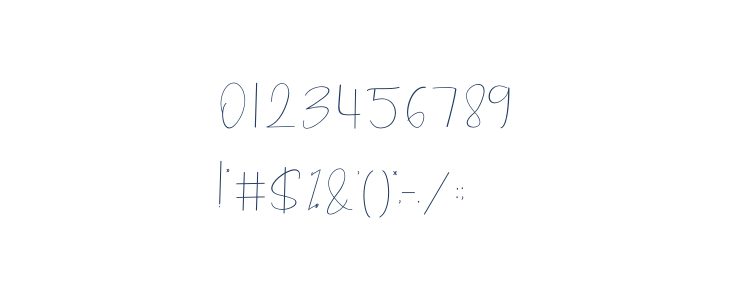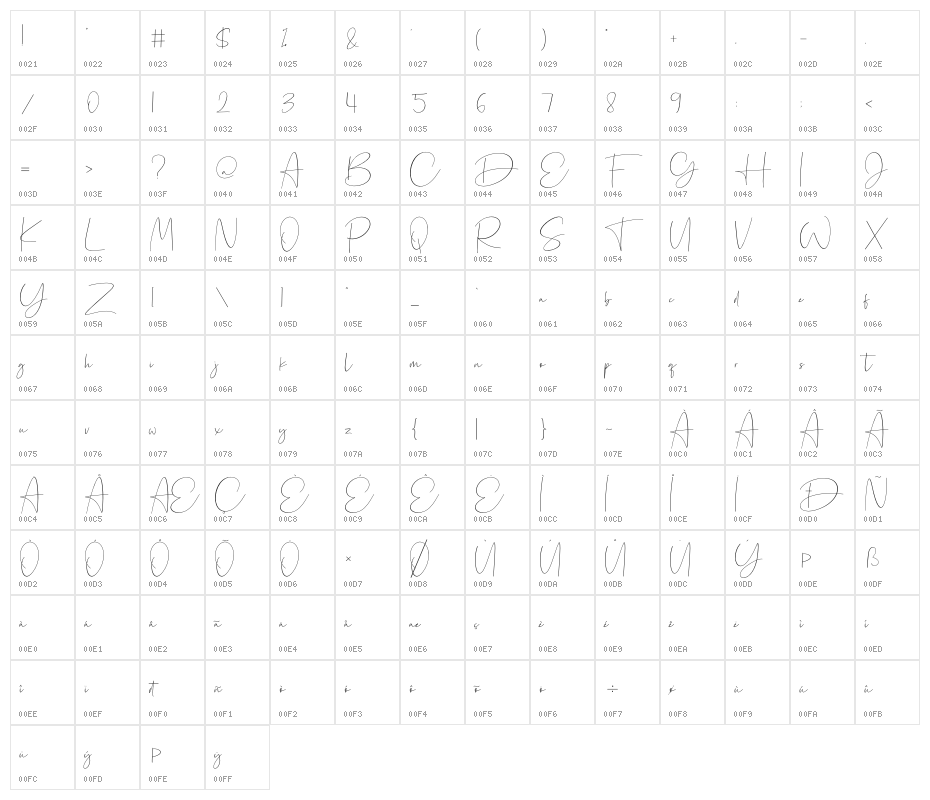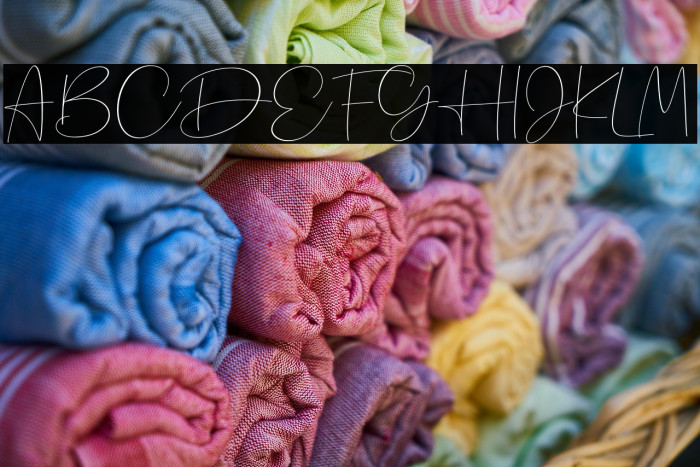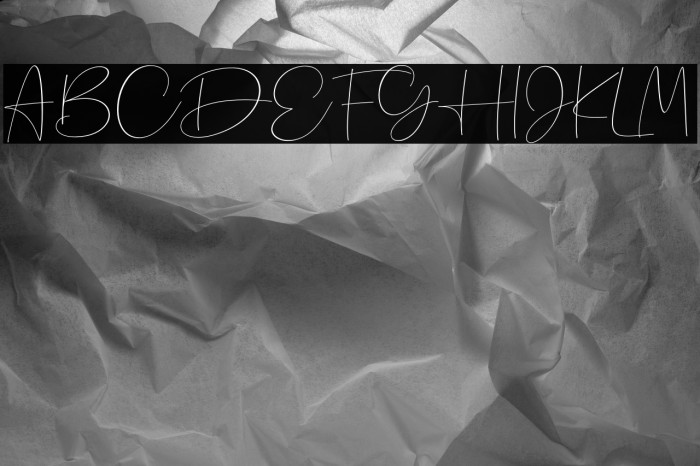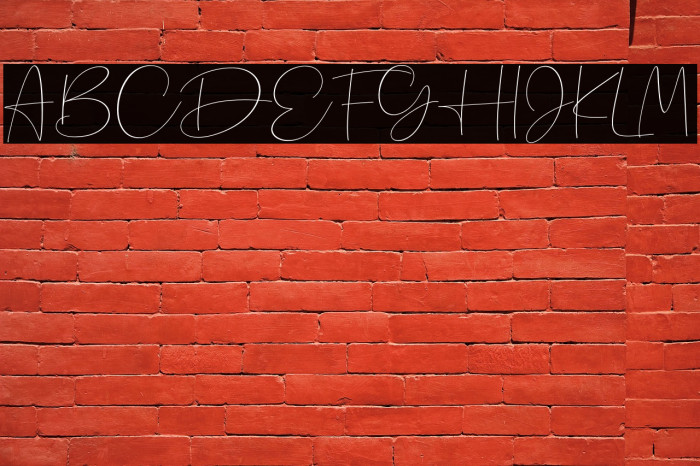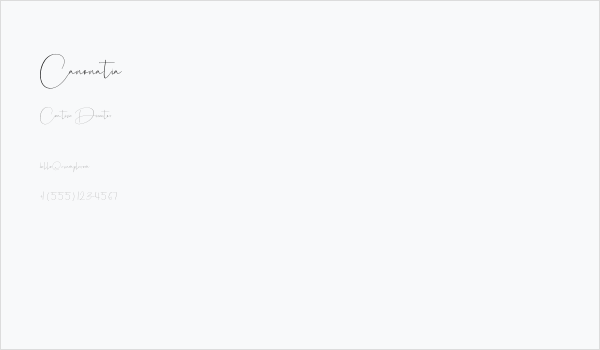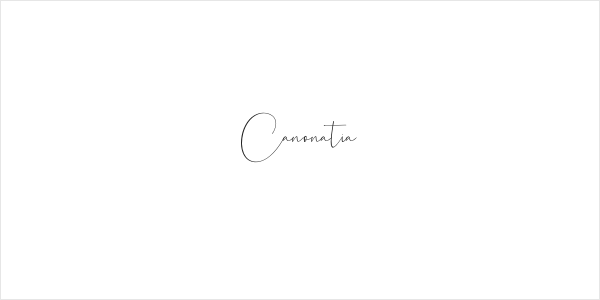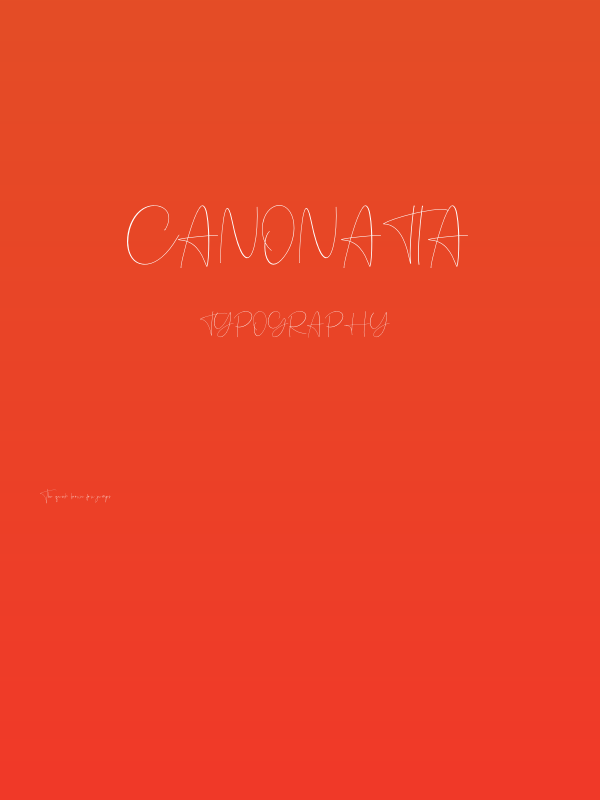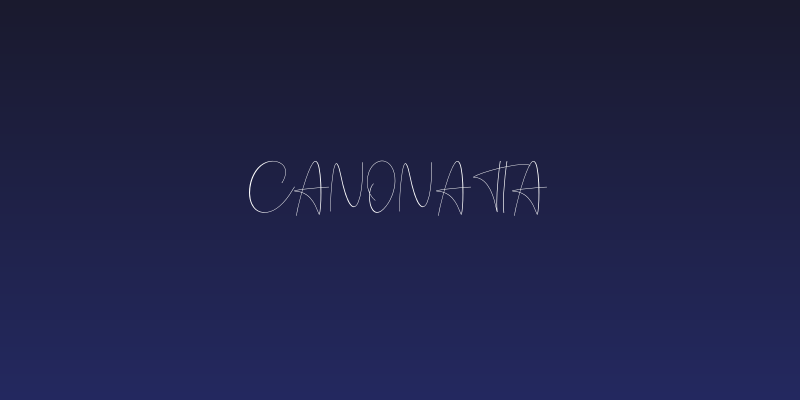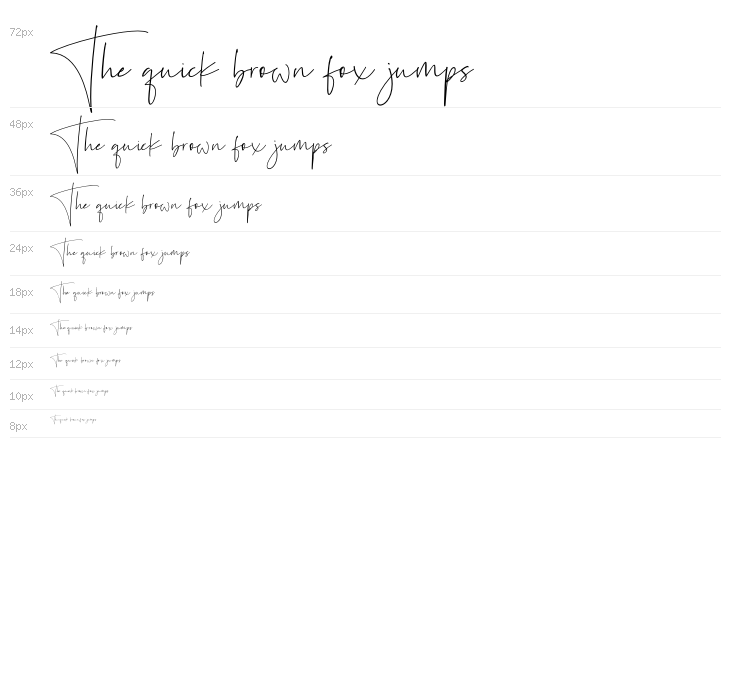
Canonatia Font
Canonatia Description
This font exudes a modern and elegant handwritten style, characterized by its thin, flowing lines and graceful curves. The uppercase letters are tall and slender, with a slight slant that adds a dynamic feel. The lowercase letters maintain a consistent flow, enhancing readability while preserving the artistic flair. Numbers and special characters are crafted with the same attention to detail, ensuring a cohesive look across all elements. The overall design is airy and light, making it suitable for projects that require a touch of sophistication and personal expression.
Use CaseLogos, Invitations, Personal Branding
Proposed ProjectsIdeal for wedding invitations, personal branding, elegant stationery, and artistic projects.